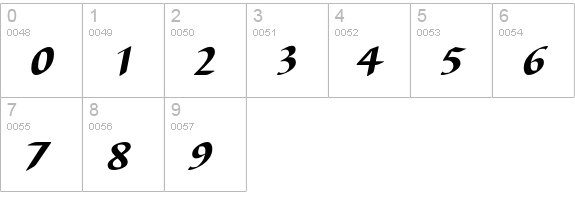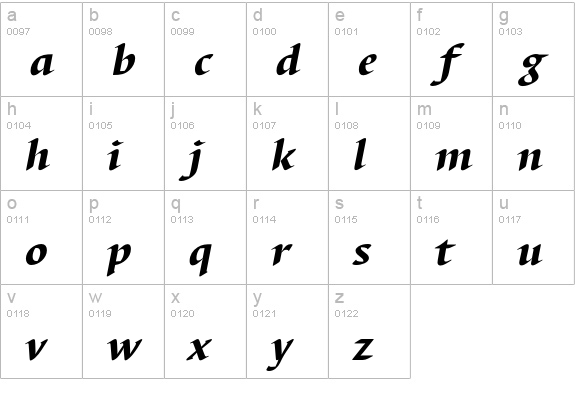
BarbedorEF-BlackItalic is a striking and elegant font that exudes a sense of sophistication and modernity. With its bold and sleek design, this typeface is perfect for adding a touch of luxury to any project. The sharp, barbed edges of the letters give it a unique and edgy appearance that is sure to make a statement. What sets BarbedorEF-BlackItalic apart is that it is not only visually stunning, but it is also free to download. You can easily access this font at FontsMarket.com, where you can unleash your creativity and elevate your designs with this exquisite typeface. Whether you're working on branding, advertising, or any other creative project, BarbedorEF-BlackItalic is sure to make a lasting impression. Elevate your designs with this stylish and versatile font today!